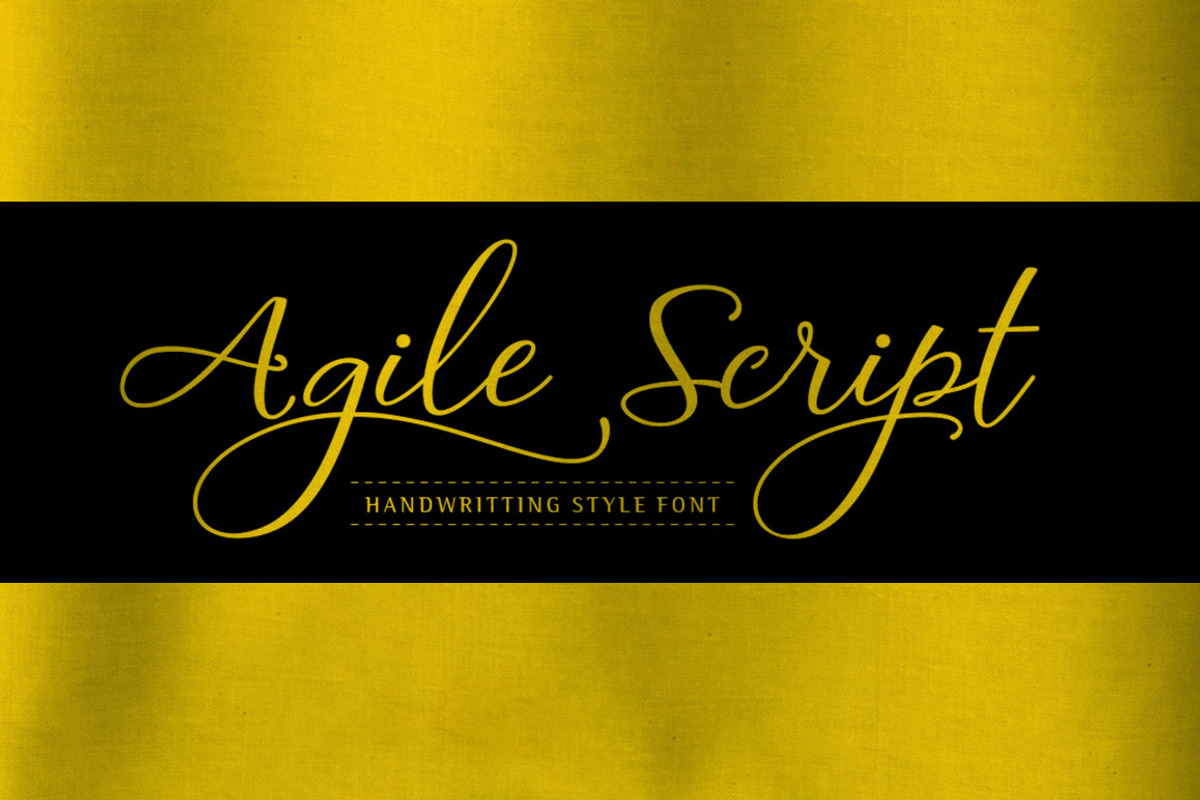
Agile Script Typeface
Agile Script Typeface by alphadesign is a font selected for branding, posters, packaging, typography.
- Agile Script Typeface: Agile Script is handwritten style font, including initial and terminal letters, alternates, ligatures.
Why Agile Script Typeface is worth a look
Agile Script Typeface by alphadesign fits naturally into Branding, posters, packaging, typography.